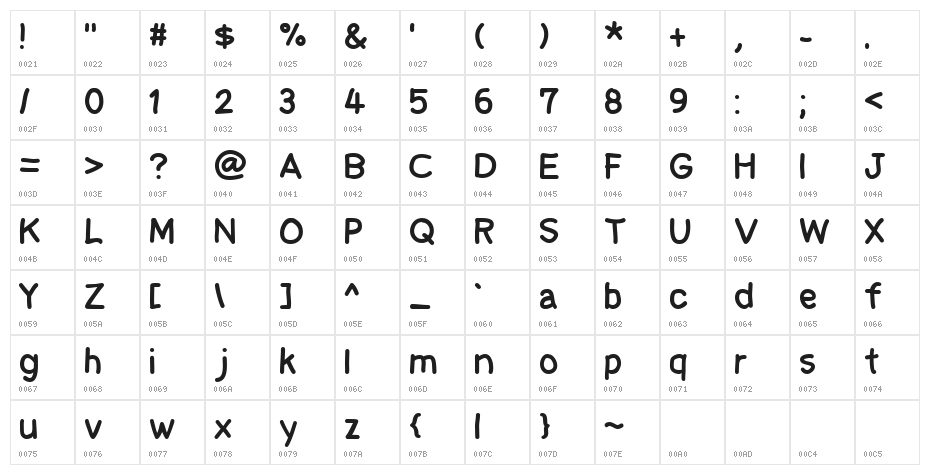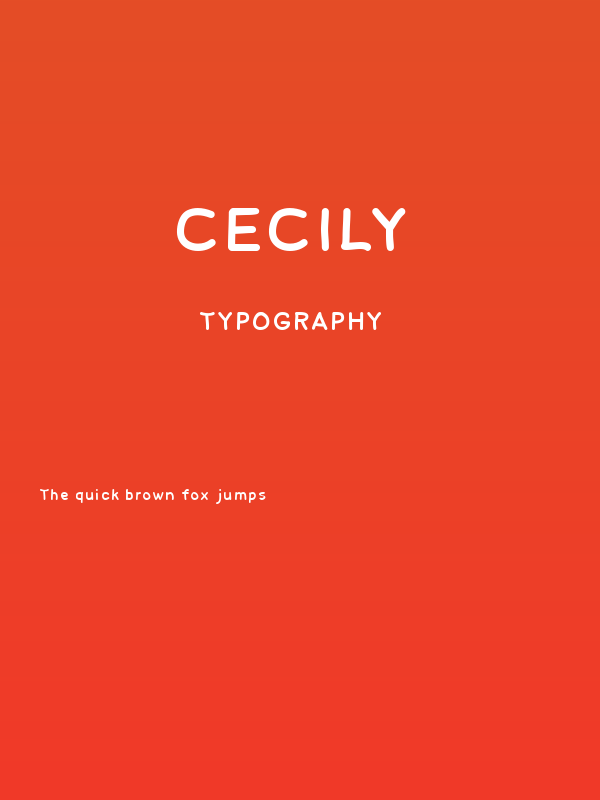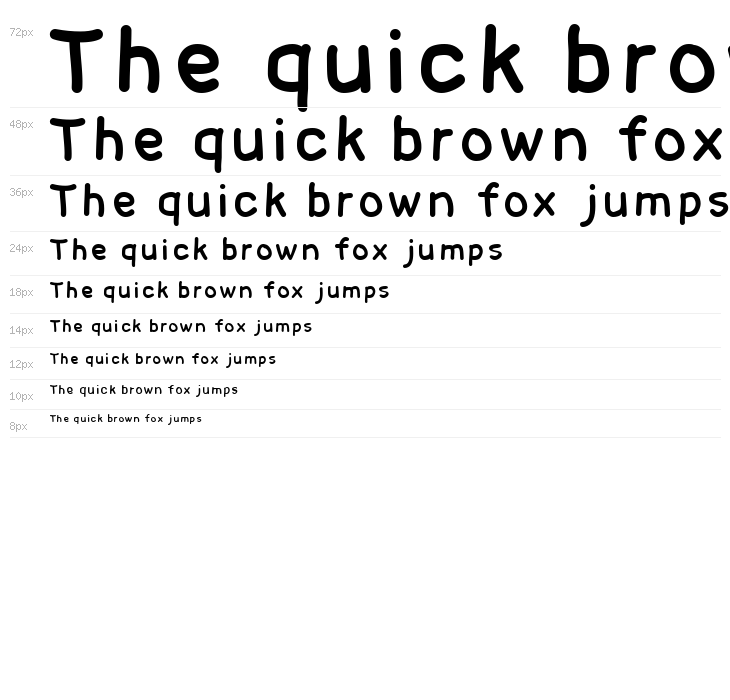
Cecily Font
Cecily Description
This font features a playful and rounded design, characterized by its smooth curves and friendly appearance. The letters are evenly spaced with a consistent stroke width, giving it a clean and approachable look. The uppercase and lowercase letters maintain a uniform style, with rounded edges that add to its charm. The numerals and special characters follow the same design principles, ensuring a cohesive appearance across all characters. This font is versatile and can be used in various design contexts where a warm and inviting feel is desired.
| Proposed Projects | Ideal for children's books, playful branding, casual invitations, and friendly website headers. |